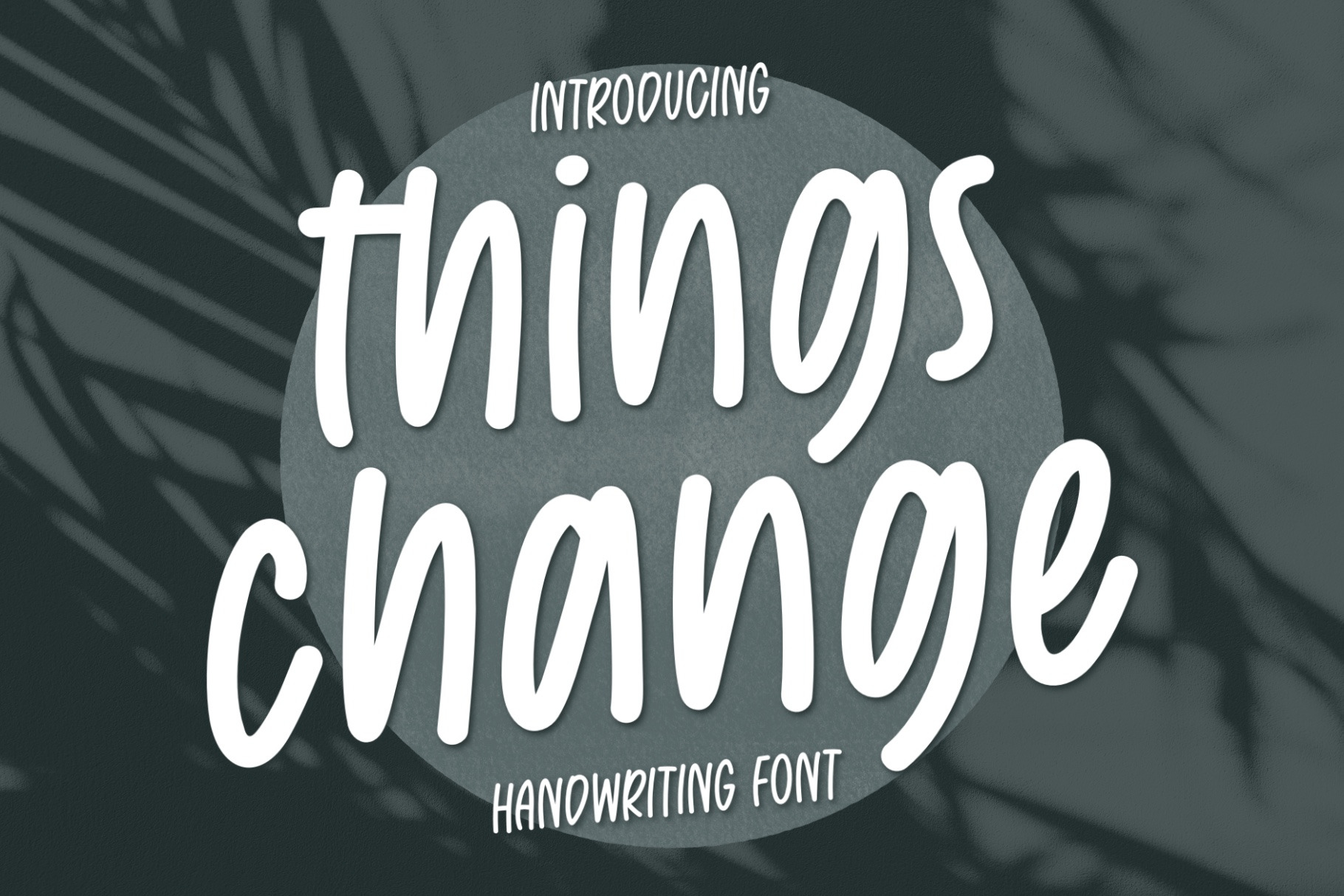
Things Change handwritten font
Things Change, a natural handwriting font. You can use this font in various projects - blog posts, digital planner, invitations, greeting cards, planners, photo albums, decorations and much more. Thank you :)